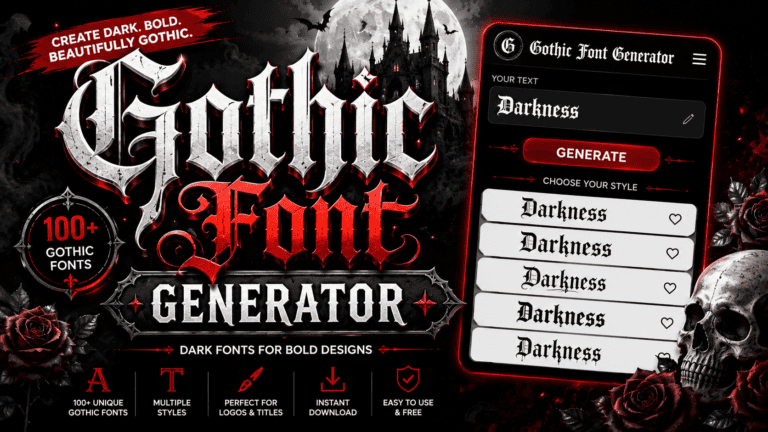
Font Generater – Change Your Boring Text To Cursive
Font design is now fully accessible. An online tool taking normal text and outputting stylish, decorative results using Unicode characters — from Gothic to cursive — gives everyday users across websites and social media real creative power.
Unlike installable font files, a copy-and-paste platform needs zero software. Crafting Instagram bios, Discord nicknames, or TikTok captions simply means picking from fancy styles — bold, small caps, glitch text, cool symbols, emojis — using any apps.
What Is a Font Generator?
A font generator is a free web tool that converts plain text into eye-catching fancy font combinations. From calligraphy to cursive style, it serves social media bios, logos, and messaging without any time-consuming manual design.
Unlike a fonts library, this text generator runs in seconds via any browser, offering 200+ different fonts instantly. Simply type into a text box, copy styled characters, and paste to Facebook, Instagram, Twitter, or chats.
How to Use the Font Generator
Type your text into the text box, then scroll through 20 unique styles on screen. The font gen tool reveals generated text live. Click any option and copy it directly to your clipboard within seconds.
Search categories or select a specific font category directly. Customize spacing and size for a personalized look, then paste into design programs. Install via download for Unicode compatibility on any device with full English support.
Font Styles Available
Font styles within any font generator range beyond bold font and italic, covering calligraphy, cursive style, and glitchy variations. These unique fonts transform boring text into eye-catching content that strengthens your social media bio instantly.
From ASCII art to Bubble fonts, each font style carries its own vibe and mood. Whether crafting headlines, bios, or gaming profiles, the right typefaces help grab attention across platforms like TikTok, Discord, and Instagram.
Where Can You Use It
From social media to gaming platforms like Steam, Minecraft, and Agario, font generators serve countless environments. Whether crafting a gamer tag, designing Instagram story headers, or writing captions for Twitter/X, styled text fits every corner.
Logos, brochures, posters, and ads are just some outputs this tool enhances. The education sector, Etsy sellers, Creative Market shops, and online store owners consistently leverage styled text for school posters, documents, and digital goods.
What Is Unicode
Most people encounter Unicode without realizing it. Every time you use electronic devices to send messages, the unicode standard governs how characters appear — from letters of the Latin alphabet to special characters and math symbols.
Unicode functions as the international standard — a true universal standard for displaying text across browsers, applications, and devices worldwide. It covers alphabets, numbers, punctuation marks, arrows, and countless characters, each assigned a unique code point.
How Unicode Works
A Unicode text converter maps fancy symbols and regular text directly to code points. This specification enables fancy fonts and visual interpretations across widely supported systems, making fancy letter styles render consistently on any device.
When you copy and paste styled text, you’re transferring Unicode characters — not a real actual font. The translator reassigns glyphs visually, letting unicode font styles work on older devices and appear in any display context.
AI-Powered Font Generation — TTF Download & Commercial License
Most designers overlook that AI-driven font engines don’t just style text — they generate installable fonts in TTF format, ready to import directly into Photoshop or Illustrator, bypassing font libraries with custom fonts built per session.
Unlike personal use licenses, the flexible commercial license here unlocks major design projects — from wedding invites to banners and flyers. Registered users can confidently sell physical goods, shirts, or crafts under one Commercial Use subscription.
Text to Image Fonts vs. Copy and Paste Fonts
Text to image fonts produce visual elements ideal for printed projects and digital designs, whereas copy and paste fonts rely on Unicode symbols, enabling pasting into chat messages, documents, and social profiles without software dependency.
Copy and paste fonts offer accessibility across electronic devices and browser platforms, while text to image fonts, built on advanced generative models, deliver high-quality fonts with consistent style, requiring export before use in design programs.
Favorites & Recent Tab Feature
We often waste time when we scroll through endless lists. Efficiency demands immediate access, meaning tracking your cool fonts happens dynamically. This workflow shift reduces cognitive load during design processes, saving valuable interactive clicks daily.
As a designer, I constantly struggle to emphasize key messages. This tool offers a unique edge when formatting social posts, immediately capturing user attention across a crowded digital world by elevating your brand visual aesthetics.